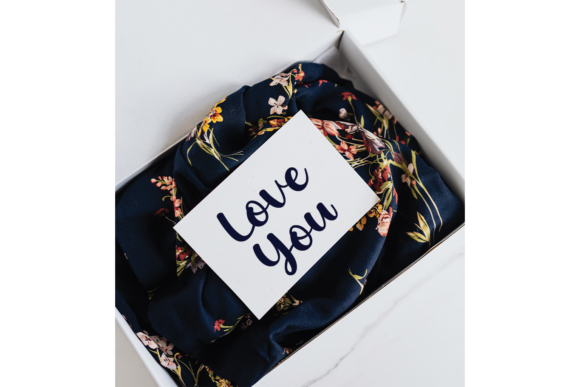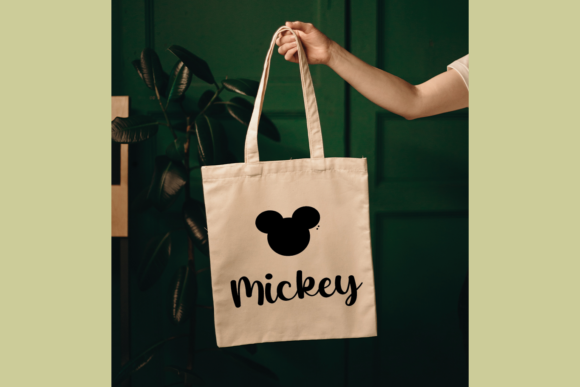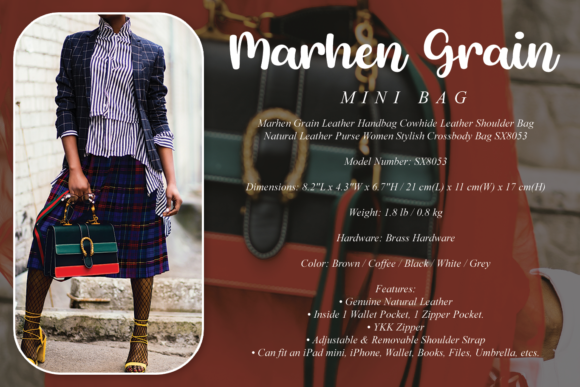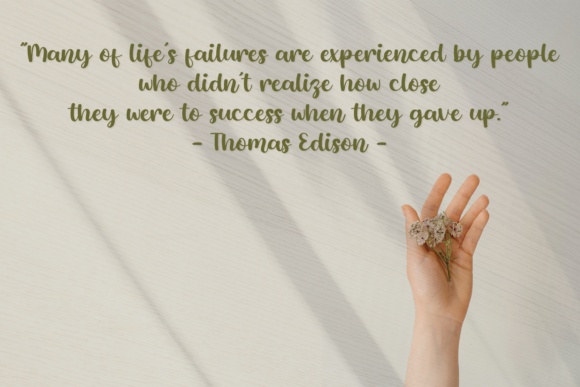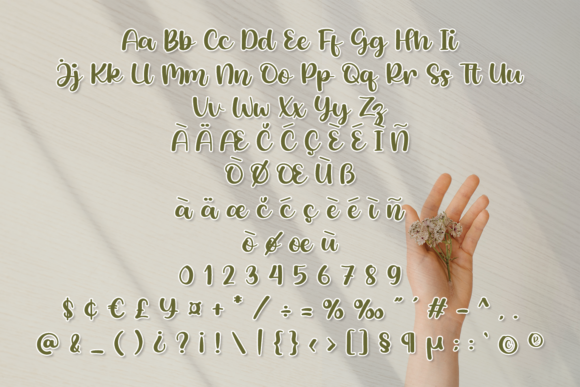
Coffee Milk Font: Elevate Your Designs with Elegance and Class
In the world of typography, a well-crafted font can make all the difference in transforming a design from ordinary to extraordinary. For those seeking a beautiful and refreshing look, Coffee Milk is a lovely and delicate script font that exudes elegance and class. In this article, we’ll dive into the details of Coffee Milk Font, exploring its features, uses, and benefits for designers and crafters.
What is Coffee Milk Font?
Coffee Milk Font is a meticulously crafted script font designed to add a touch of sophistication and refinement to any design project. Its delicate strokes and elegant curves make it perfect for creating visually stunning text-based designs, from wedding invitations and branding materials to packaging and digital content.
Key Features of Coffee Milk Font
- Delicate and Elegant Design: Coffee Milk Font boasts a beautiful, cursive script design that exudes elegance and refinement.
- Highly Readable: Despite its delicate nature, Coffee Milk Font is highly readable, making it suitable for body text and headings.
- Versatile: This font can be used for a wide range of design projects, from digital content to print materials.
- Easy to Pair: Coffee Milk Font pairs well with a variety of fonts, allowing designers to create stunning font combinations.
Who Can Benefit from Coffee Milk Font?
Coffee Milk Font is an excellent choice for designers, crafters, and businesses looking to elevate their brand’s visual identity. Some of the professionals who can benefit from this font include:
- Graphic Designers: Coffee Milk Font is perfect for creating stunning branding materials, such as logos, business cards, and brochures.
- Wedding Planners and Stylists: This font is ideal for creating beautiful wedding invitations, stationery, and decor.
- Digital Content Creators: Coffee Milk Font can add a touch of elegance to blog posts, social media graphics, and website headers.
- Crafters and Small Business Owners: This font is suitable for creating eye-catching packaging, labels, and marketing materials.
Tips for Using Coffee Milk Font
To get the most out of Coffee Milk Font, follow these tips:
- Use it as a Headline Font: Coffee Milk Font is perfect for creating stunning headlines and titles.
- Pair it with a Sans-Serif Font: Combine Coffee Milk Font with a sans-serif font for a beautiful and readable font combination.
- Experiment with Colors and Textures: Add depth and interest to your designs by experimenting with different colors and textures.
Coffee Milk Font is a beautiful and elegant script font that can elevate any design project. Its delicate strokes, elegant curves, and high readability make it perfect for designers, crafters, and businesses looking to add a touch of sophistication to their visual identity. With its versatility and ease of use, Coffee Milk Font is an excellent choice for anyone seeking to create stunning text-based designs.